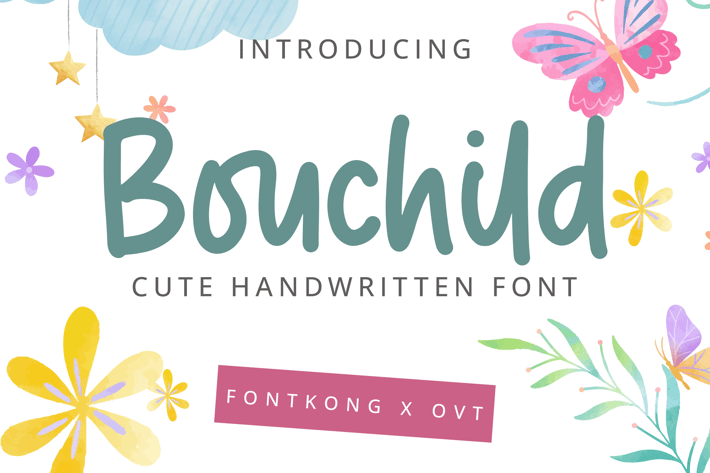
Bouchild - A Cute Handwritten Font
Bouchild is a delightful and charming handwritten font that brings a touch of playfulness to your design projects. With its whimsical curves and friendly letterforms, Bouchild is perfect for children's books, greeting cards, playful branding, and fun social media graphics. This font captures the essence of youthful creativity, adding a sense of joy and personality to your work.
Crafted with a playful spirit, Bouchild offers a warm and inviting feel that makes it ideal for both headings and body text. Its unique and quirky style ensures readability while standing out in any design context. The font's versatility extends to various applications, from digital platforms to printed materials, making it a valuable asset for any designer.
Celebrate the joy of handwritten typography with Bouchild, a font that embodies the spirit of fun and creativity. Its distinctive character and adaptability make it an essential addition to any designer's toolkit. Elevate your designs with Bouchild and let the playful vibes shine through.